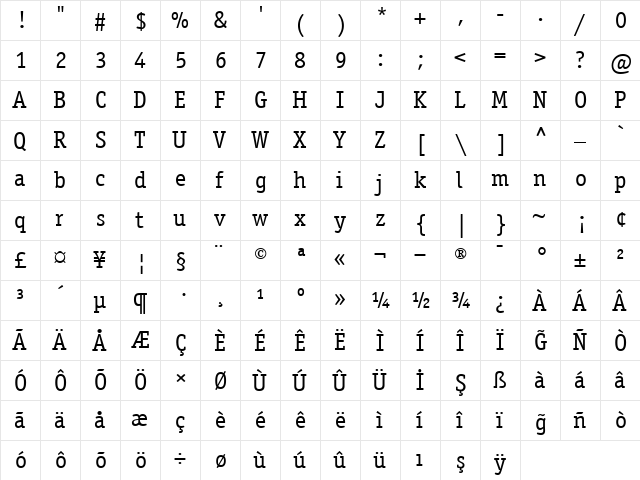
OfficinaSerifBook Regular
Design Context for OfficinaSerifBook Typeface
OfficinaSerifBook carries the refined structure of traditional serif typography, with bracketed terminals and considered proportions that communicate credibility and craft.